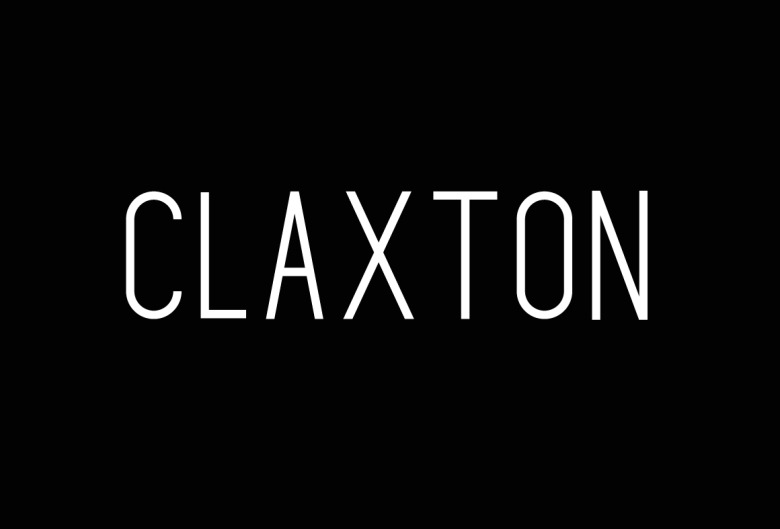
Claxton Font Family
Claxton Font
Continue a friendly sans-serif font. Introducing Claxton. It is designed and shared by MikeHill. Claxton is a stylish and sophisticated typeface great for simplistic up-market branding. Comes in 3 weights. Enjoy!
Claxton Sans Serif Font